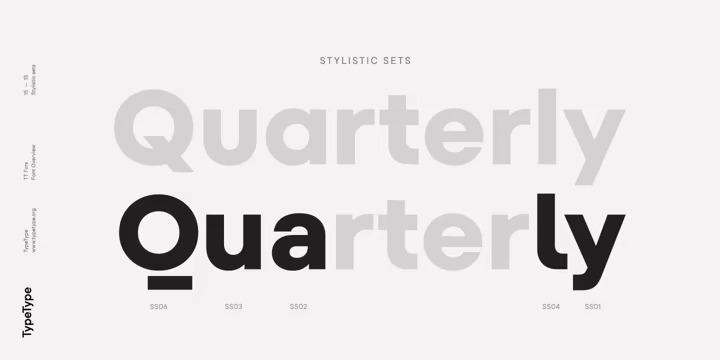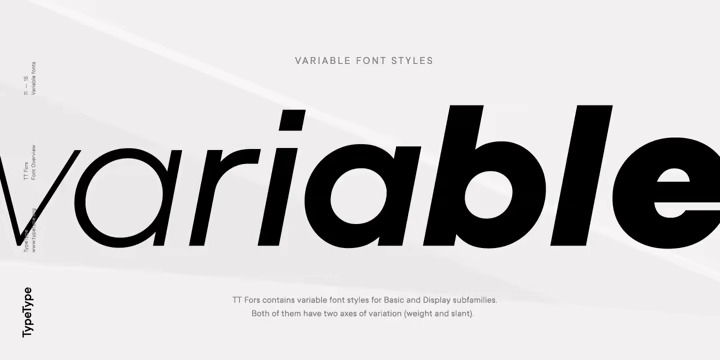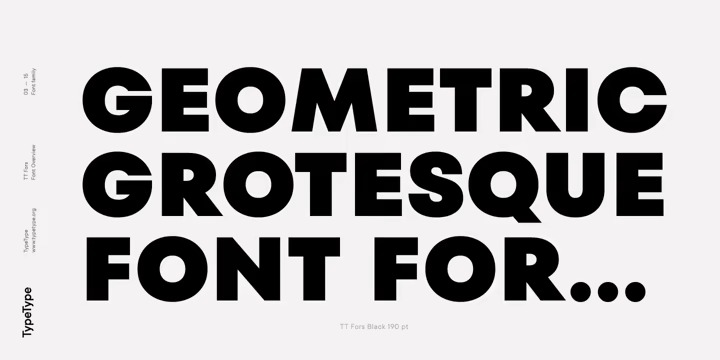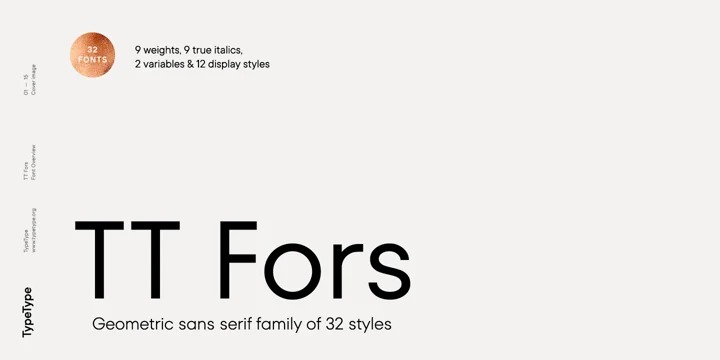
TT Fors Font
TT Fors Sans Serif Font
This is a structured geometric sans serif font family with normal and condensed proportions. TT Fors is a great addition to TypeType’s line of functional sans serifs, which already includes such fonts as TT Norms Pro, TT Commons, TT Hoves and TT Interphases.
The main inspiration for the creation of TT Fors was the study of geometric grotesques of the early to mid-20th century (Futura, Neuzeit Grotesk, Twentieth Century, Avantgarde Gothic, etc.), and the analysis of the contribution they made to the visual environment of that time. We gave ourselves the task to create the most versatile functional typeface that draws inspiration from the visual environment of the early to mid-20th century, but at the same time is aimed at uninterrupted use in all modern media, from branding and packaging design to work in interfaces and applications.
This versatility is reflected in the title TT Fors (for), a typeface for a wide range of uses. The rounded characters in the font family tend to be shaped as the correct circle as much as possible, while the rest of the characters have narrower proportions. For more functionality, the typeface has rather high lowercase characters. Thanks to the correct and precisely selected geometric shapes and uniform construction rules, TT Fors works great both in the format of large headings and in very small text sizes used in book printing and in web design.
In addition, the TT Fors family has a display subfamily TT Fors Display, which is a trendy pair for the text fonts. The main feature of the display subfamily is high contrast in horizontal or vertical strokes. When choosing a contrasting stroke, we paid attention that the shape of the letter would not go into reverse contrast and become a stressed sans serif. The subtle strokes in TT Fors Display have added sufficient display vibe to give the font a vibrant character, while remaining intelligent and serious.
In total, TT Fors family includes 32 fonts: 9 weights and 9 italic styles in the text subfamily, 6 weights and 6 italic styles in the display subfamily, and 2 variable fonts for both subfamilies. TT Fors has stylistic alternatives, ligatures, small caps (text family only), numbers in circles, arrows and a set of alternative round full stops and punctuation marks (text family only), slashed zero, and other useful features. More details about all OpenType features can be found in the font specimen.